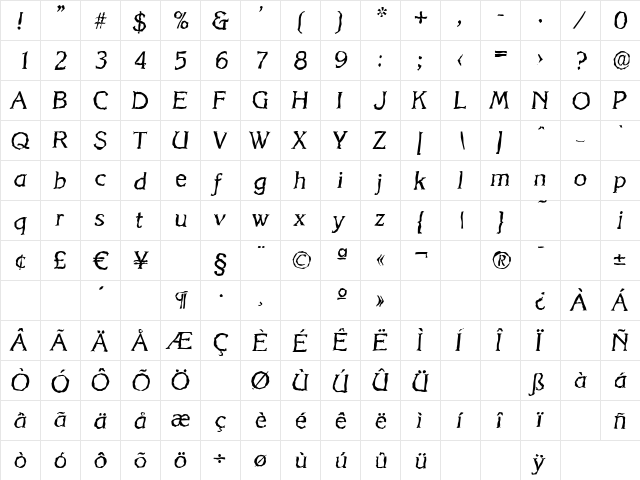
KorinthRandom Italic
Design Context for KorinthRandom Typeface
KorinthRandom offers clean, dependable letterforms without strong stylistic allegiance, making it a practical choice for designers who need flexibility. The dynamic lean of this cut emphasises speed and emphasis in any layout.
Pro Tip: Use KorinthRandom for emphasis, pull quotes, and subheadings where its slanted energy can add rhythm to the layout.